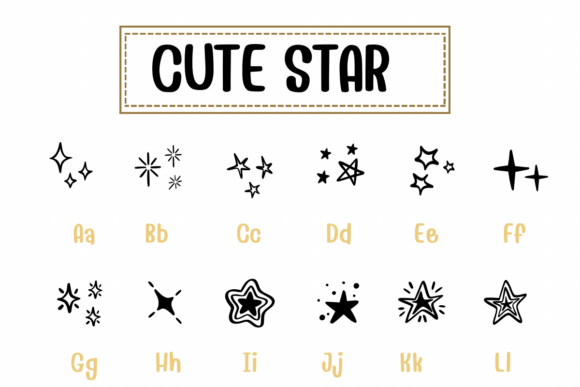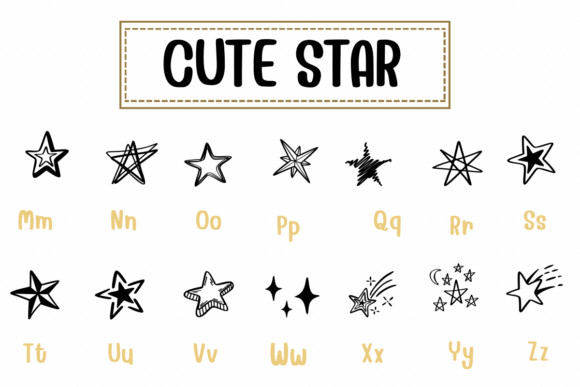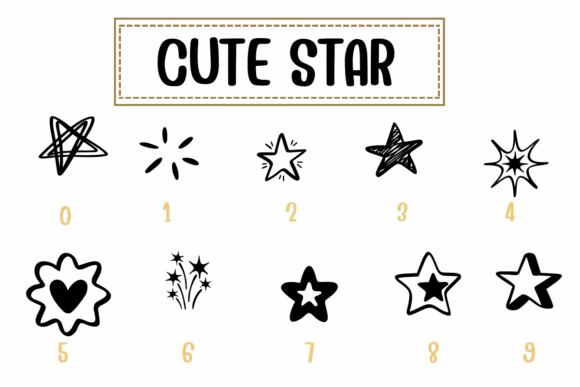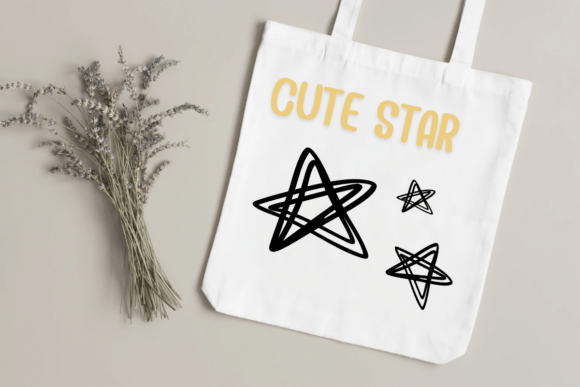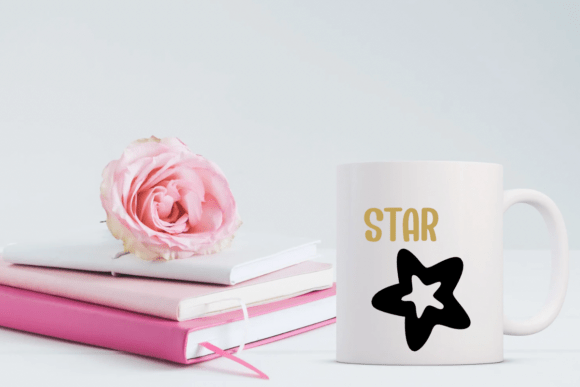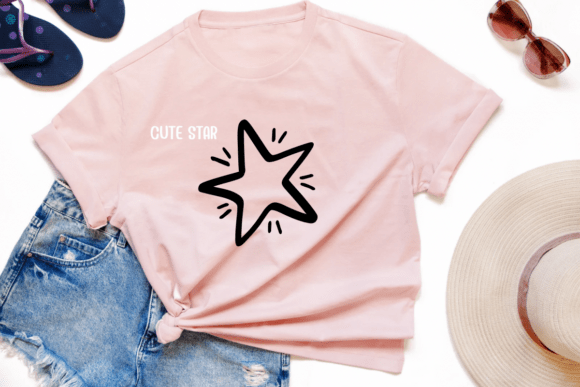
Introduction to Cute Star Font
Do you remember the excitement of planning your first DIY project or crafting a unique wedding invitation? The thrill of bringing your creative ideas to life with the perfect design elements is unmatched. One essential tool that can elevate your projects is the Cute Star Font – a delightful dingbats font with a sketched style that’s perfect for adding a touch of whimsy and personality.
As a designer, you understand the importance of having a reliable design resource at your fingertips. The Cute Star Font is a valuable addition to any creative arsenal, offering endless possibilities for enhancing your projects. From wedding invitations to DIY crafts, decorations, and logos, this font is a must-have for anyone looking to add a touch of magic to their designs.
Key Features of Cute Star Font
- High-quality vector design, suitable for a creative project that requires a delicate and whimsical touch.
- Unique characteristics: delicate star shapes, intricate details, and a subtle, playful feel, making it perfect for adding a touch of cuteness to any design.
Honest Review: Cute Star Font
I recently stumbled upon the Cute Star Font while searching for a design resource to enhance my creative project. I must say, I was pleasantly surprised by the quality of this free download.
What works well: ✨ The font has a beautiful, delicate design that’s perfect for adding a touch of whimsy to any project. The transparent background makes it easy to layer over other elements without any distracting edges. The high quality of the font ensures that it scales well, even at larger sizes.
The font comes in a range of styles, from bold and playful to elegant and sophisticated. It’s versatile enough to be used in a variety of creative projects, from children’s books to wedding invitations.
What doesn’t work well: ⚠️ The font may be a bit too cutesy for some projects, and the lack of a bold weight option can make it difficult to use in certain situations. Additionally, the font may not be suitable for projects that require a more serious or professional tone.
Overall, I’m impressed with the Cute Star Font. It’s a great resource for designers looking to add a touch of personality to their projects. With a little creativity, you can use this font to create some truly unique and eye-catching designs.
- Perfect for creative projects that require a touch of whimsy
- High-quality font with transparent background
- Range of styles to suit different design needs
The Cute Star Font is a versatile design resource that can be used in a variety of creative projects, including:
- Wedding invitations and decorations
- Baby shower invitations and decorations
- Party invitations and decorations
- Scrapbooking and card-making